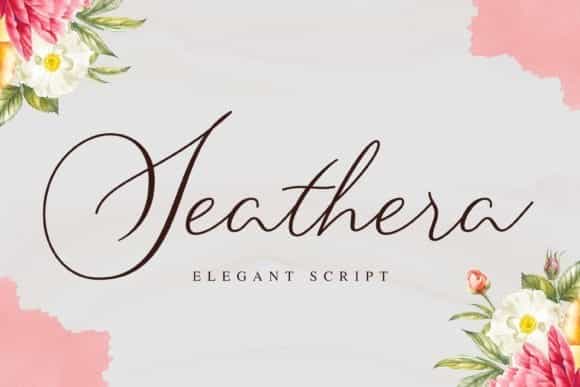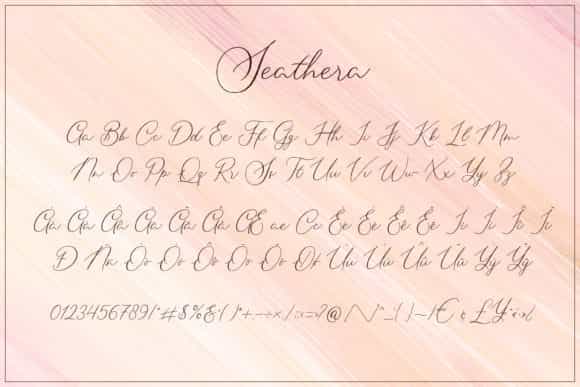
Seathera is a luxury signature font with handwritten textures ideal for creating signature logos and watermarks. It comes with a character set, stylistic alternates, numerals, punctuation marks, ligatures, swashes for lowercase endings and symbols for use.